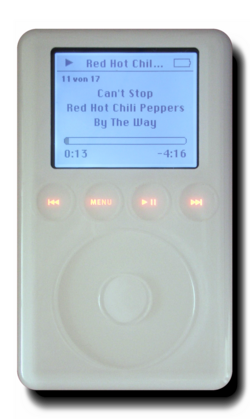
| Category | Sans-serif |
| Designer | Susan Kare |
| Foundry | Apple Computer |
| Date released | 1984 |
| Re-issuing foundries | Bigelow & Holmes |
Chicago is a sans-serif typeface designed by Susan Kare for Apple Computer. It was used in the user interface of the Mac OS between 1984 and 1997, and was an important part of Apple's brand identity. It was also used in early versions of the iPod user interface. Chicago was initially a bitmap font; as Mac OS's capabilities improved, Apple commissioned the type foundry Bigelow & Holmes to create a vector-based TrueType version in 1991.1 The typeface is named after the U.S. city of Chicago, following the theme of original Macintosh fonts being named after major world cities.
Description
Susan Kare said that Chicago was the first font to be developed for the Macintosh. Before the team settled on the convention of naming fonts after world cities, it was called Elefont (also the name of a bold semi-serif typeface designed by Bob McGrath in 1978).2 Early Macintosh computers had one-bit, black and white displays with no gray, and unavailable menu items and other controls were dimmed in gray (rendered as a checkerboard pattern of pixels), requiring a font that would be clearly legible at this effectively lower resolution. Chicago was designed solely for this purpose, hence its unusual appearance. It was one size, 12 pt., for menus, dialogs, window titles, and text labels, and was the system font for this purpose in all versions of Mac OS that supported the early compact Macs and their one-bit displays until System 7.6. Printed documentation often included screen images, in which the bitmap Chicago 12 was plainly pixelated. A TrueType version was created in 1991 for this documentation purpose, exactly fitting the sizing and spacing of the single-size bitmap version and allowing printed documentation to illustrate computer screens without the font appearing jagged and out of place on a printed page. This outline version had many differences from the bitmap version, more apparent at greater sizes, for which it was not intended. The zero was also slashed to distinguish it from the capital "O".
In Mac OS 8, which only supported systems with grayscale and color displays, Charcoal replaced Chicago as the default system font. Chicago continued to be distributed as a standard component of the system, and Apple urged developers to keep designing user interfaces for the Chicago typeface, since the new alternate fonts used the Chicago metrics as a foundation.
German-language versions of Mac OS, as well as all versions of Mac OS 9, had a different rendering of the 12-point version of Chicago. The letter "W" had two dips instead of one at the bottom, the letter "V" had its lower tip at the center instead of veering left, and the letter "I" (capital "i") had serifs at the top and bottom, distinguishing it from "l" (lowercase "L"). A mix of this and the original Chicago was used in the original iPod.
Chicago was also used in Apple marketing materials. It was common to find this font in early amateur desktop publishing productions, since it was available as part of the system. While Apple gravitated away from Chicago following the adoption of the easier-to-read Charcoal as part of the Platinum theme in Mac OS, it was later revived in the user interface of the iPod music player, where its design purpose was once again applicable. With the introduction of the iPod mini, however, a smaller typeface was needed, and the Espy Sans font from the Apple Newton was used. Finally, with the introduction of the iPod Photo, the color iPod interface switched to Podium Sans, a bitmap font similar to the Myriad Pro typeface (which Apple had adopted gradually for its marketing beginning in 2002 before it was replaced by San Francisco in 2016).
The Chicago bitmap typeface was also adapted by Squaresoft for use in the English-language releases of Super NES games such as Final Fantasy VI and Chrono Trigger.3
Though the original font is no longer bundled with macOS, two Thai-language fonts bundled with macOS, Krungthep and Silom, use Chicago for their Latin letters and hence can be used as modern replacements.